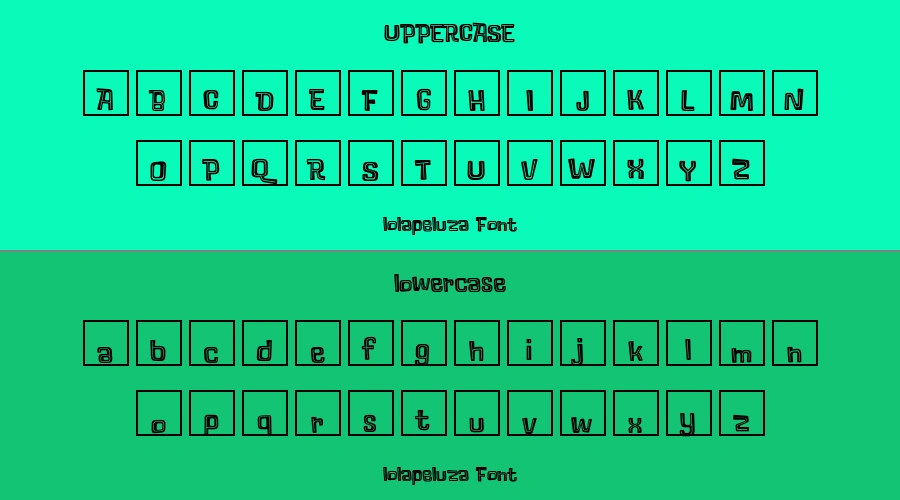
About lolapeluza Font
lolapeluza Font embodies typographic excellence through its masterful combination of elegant proportions and consistency. Created for wine labels, this typeface delivers exceptional longevity and functional utility across all applications. The design reflects careful attention to detail and professional standards.
Advanced capabilities include distinctive playful elements and versatile brand signatures, giving designers creative control. When used in colophons, lolapeluza Font exhibits remarkable detail preservation. The harmonious balance between bowl shape and brand personality sets this typeface apart.